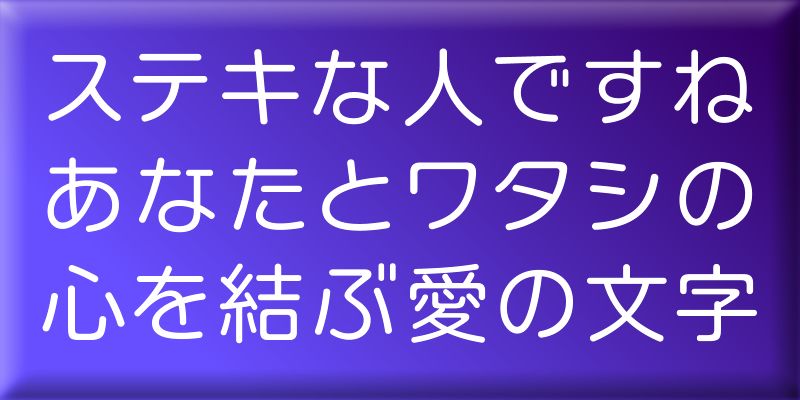
NitalagoRera Font Free Download is a playful and expressive Japanese display typeface that captures the essence of whimsical handwriting with a touch of creative flair. With a name that evokes individuality and charm, NitalagoRera is perfect for children’s books, character branding, posters, manga-inspired designs, and anything that needs a warm, friendly, and slightly quirky personality.
NitalagoRera Font Free Download features soft, rounded strokes and gentle irregularities that mimic the feel of casual hand-drawn writing. It includes support for Hiragana, Katakana, and Kanji, as well as basic Latin characters, making it a great fit for bilingual and culturally rich designs.
Whether you're creating signage for a themed café, packaging for a cute product line, or a fun UI element in a mobile game, NitalagoRera adds a human, heartfelt touch to your typography.
Friendly, fun, and filled with personality—NitalagoRera Font is a delightful choice when your design needs a voice that’s both unique and emotionally engaging.